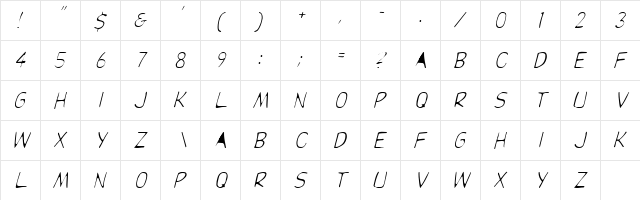
OxbowCaps Oblique
Design Context for OxbowCaps Typeface
OxbowCaps is a composed and adaptable typeface that performs quietly and consistently across a wide range of design contexts. The dynamic lean of this cut emphasises speed and emphasis in any layout.
Pro Tip: Use OxbowCaps for emphasis, pull quotes, and subheadings where its slanted energy can add rhythm to the layout.